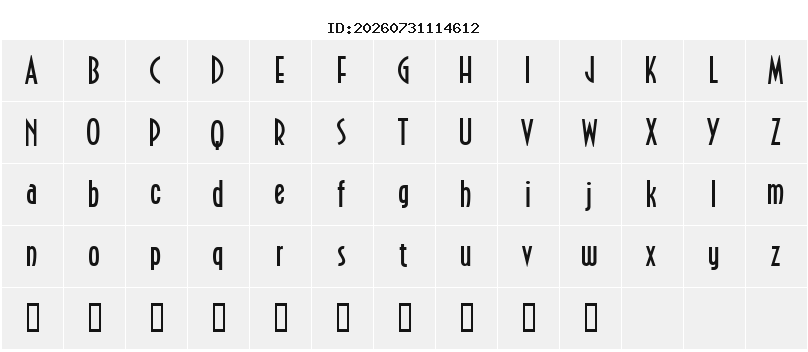
• Font Name: Lifestyle
• Font Style: Condensed
• Font ID: Macromedia Fontographer 4.1 Lifestyle Condensed
• Full Font Name: Lifestyle Condensed
• Version: Macromedia Fontographer 4.1 10/6/00
• PostScript Name: LifestyleCondensed
• Character Count: 55
• Copyright: by Loveless
Lifestyle.ttf is a modern, elegant sans-serif font designed for ultimate readability and visual harmony. Perfect for branding, headlines, web design, and print materials.